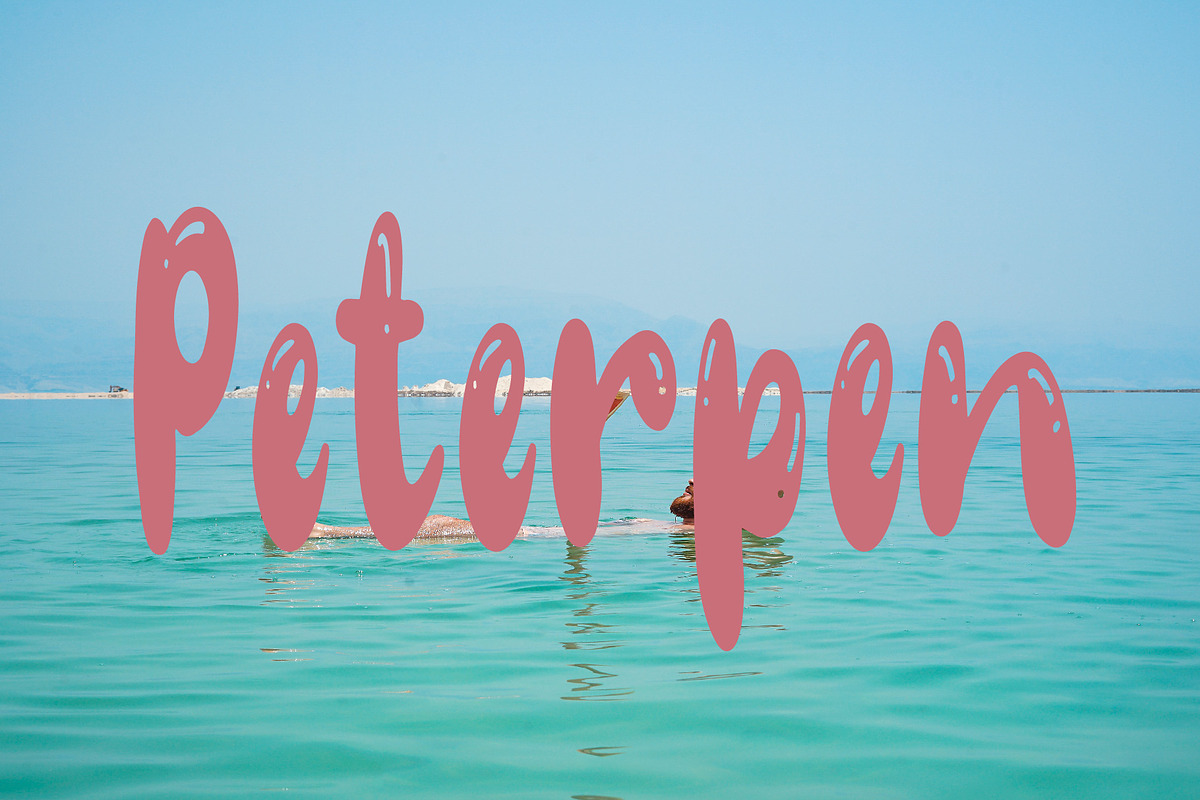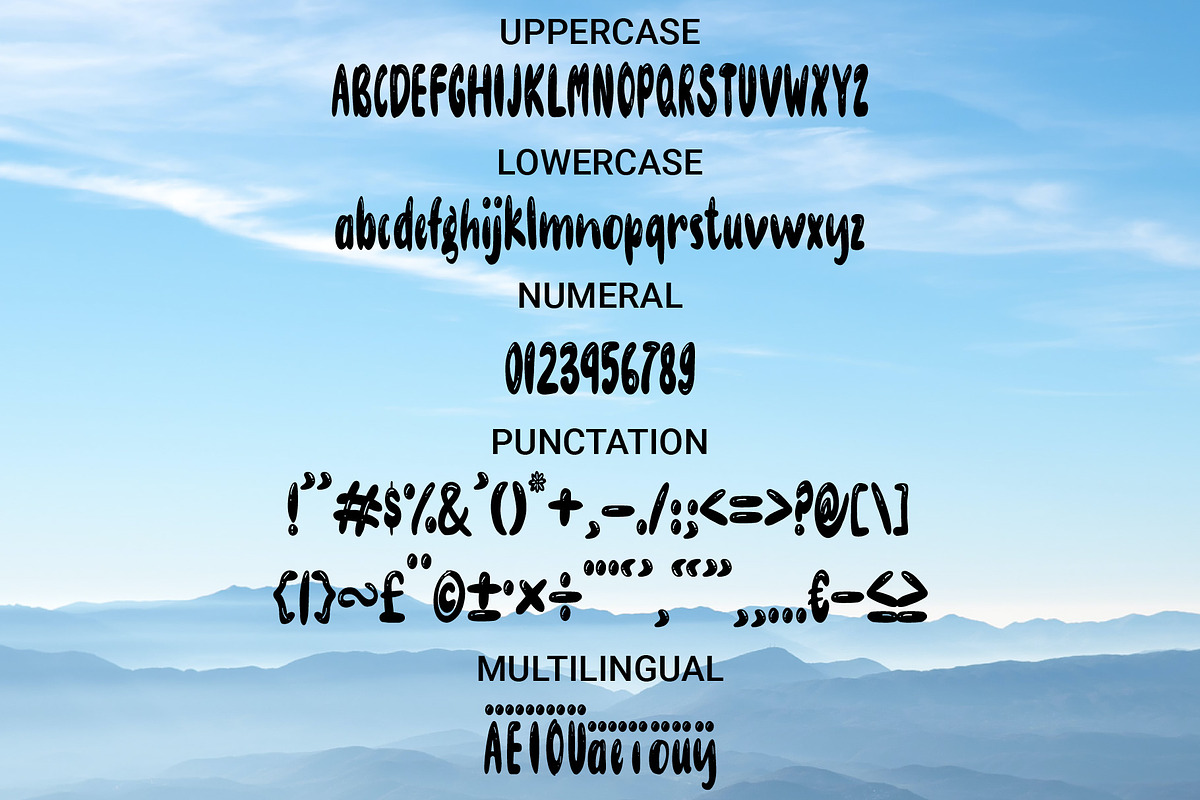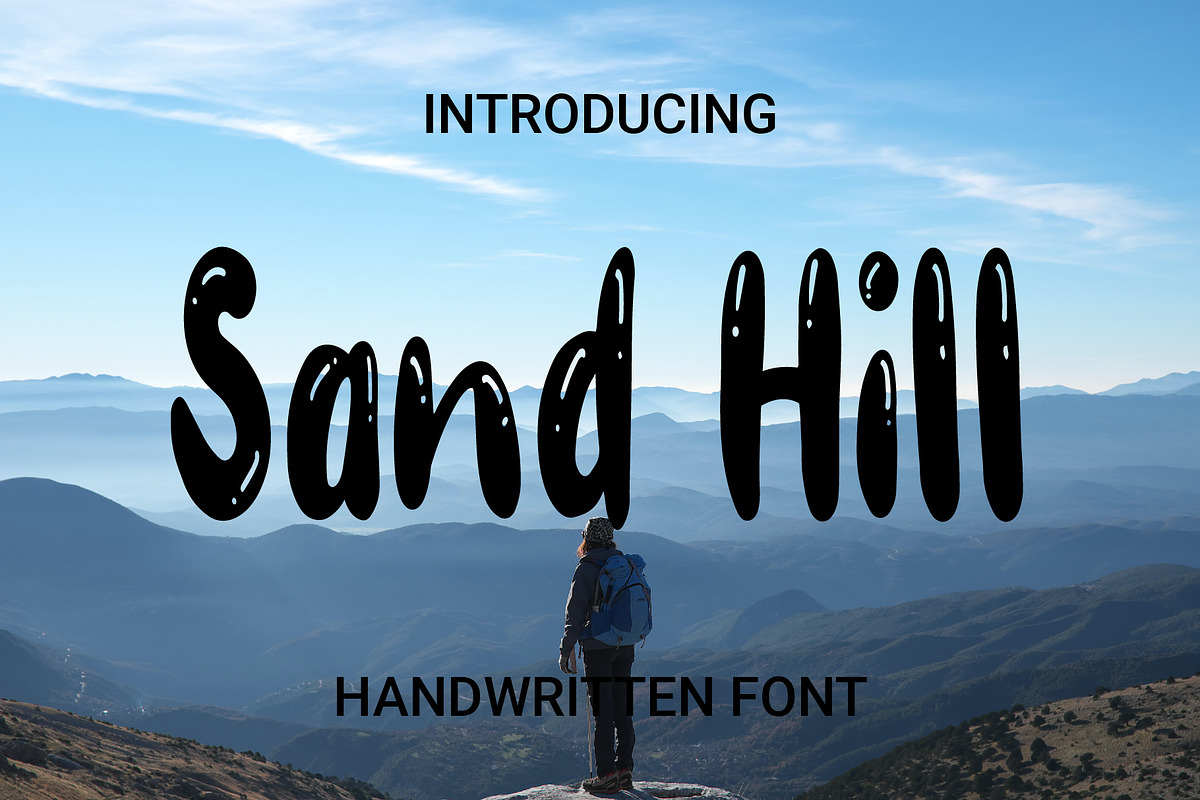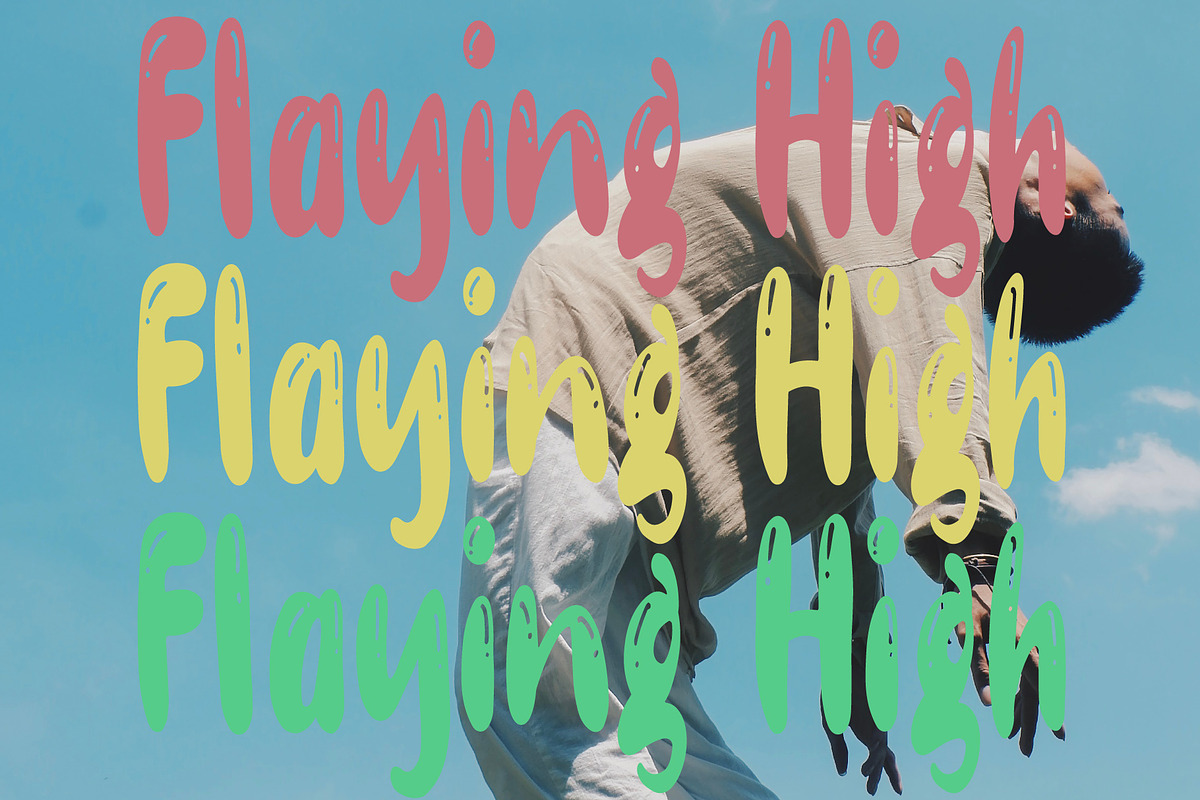
Sand Hill
San Hill is a type of thick handwriting that has a small line pattern in it to beautify his writing. This font is good for screen printing clothes, child posters or others according to your needs.